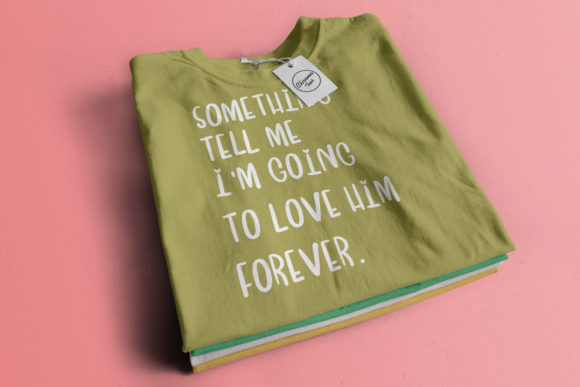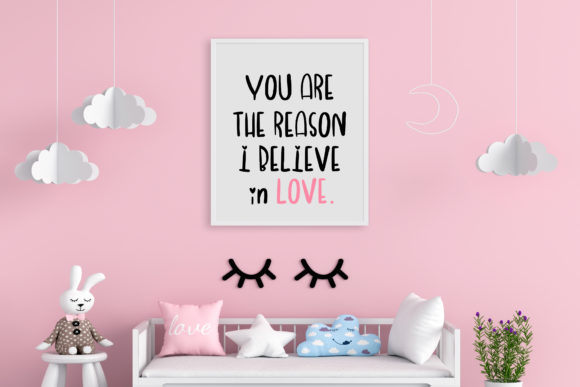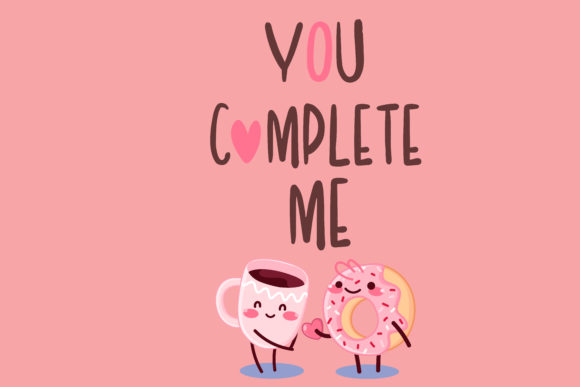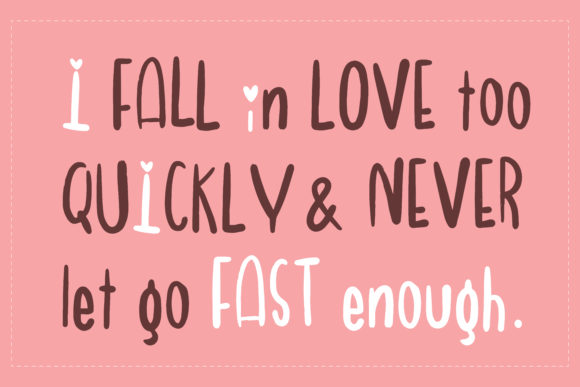
Fall in Love Quickly Font: The Perfect Addition to Your Design Arsenal
Are you tired of using the same old fonts for your designs? Look no further! Introducing the Fall in Love Quickly font, a cute and casual handwritten font that is sure to add a touch of friendliness to any project. With its incredibly friendly feel, this font is perfect for designers and crafters looking to add a personal touch to their work.
What is Fall in Love Quickly Font?
Fall in Love Quickly is a beautiful, handwritten font that exudes warmth and approachability. Its casual and relaxed vibe makes it perfect for a wide range of design projects, from social media graphics to DIY crafts. Whether you’re looking for fonts for Instagram or calligraphy scripts for your next DIY project, this font is sure to impress.
Key Features of Fall in Love Quickly Font
- Cute and Casual Design: The Fall in Love Quickly font boasts a playful and informal design that is sure to capture the attention of your audience.
- Incredibly Friendly Feel: The font’s friendly feel makes it perfect for designs that require a personal touch, such as greeting cards, invitations, and social media graphics.
- Handwritten Style: The font’s handwritten style gives it a unique and authentic feel that is sure to set your designs apart from the rest.
- Versatile: The Fall in Love Quickly font is versatile and can be used for a wide range of design projects, from digital graphics to print materials.
Uses of Fall in Love Quickly Font
The Fall in Love Quickly font is perfect for a variety of design projects, including:
- Social Media Graphics: Use the font to create eye-catching social media graphics, such as Instagram posts and Facebook updates.
- DIY Projects: Add a personal touch to your DIY projects, such as handmade cards, gift tags, and scrapbook pages.
- Calligraphy Scripts: Use the font as a calligraphy script for your next DIY project, such as a wedding invitation or a special occasion card.
- Branding and Marketing Materials: Use the font to create branding and marketing materials, such as logos, brochures, and flyers.
Why Choose Fall in Love Quickly Font?
There are many reasons why you should choose the Fall in Love Quickly font for your next design project. Here are just a few:
- Unique and Authentic Design: The font’s unique and authentic design is sure to set your designs apart from the rest.
- Customizable: The font is customizable, allowing you to adjust the size, color, and style to suit your design needs.
In conclusion, the Fall in Love Quickly font is a beautiful and versatile font that is perfect for designers and crafters looking to add a personal touch to their work. With its cute and casual design, incredibly friendly feel, and handwritten style, this font is sure to turn any creative idea into a true piece of art! So why wait? Download the Fall in Love Quickly font today and take your designs to the next level!